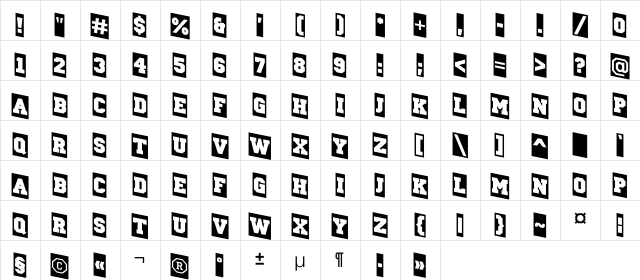
a_CampusCmDn Regular
Design Context for a_CampusCmDn Typeface
a_CampusCmDn is a composed and adaptable typeface that performs quietly and consistently across a wide range of design contexts.